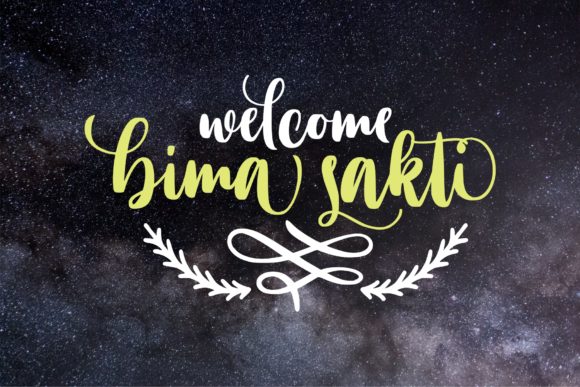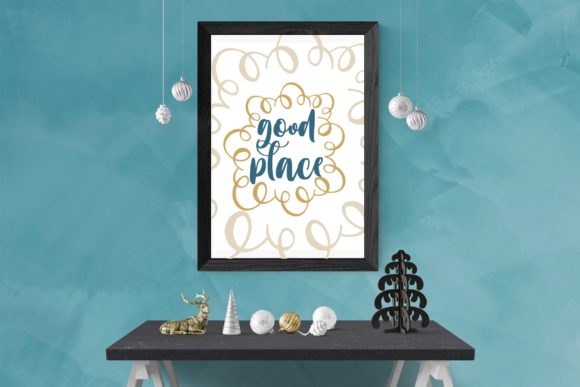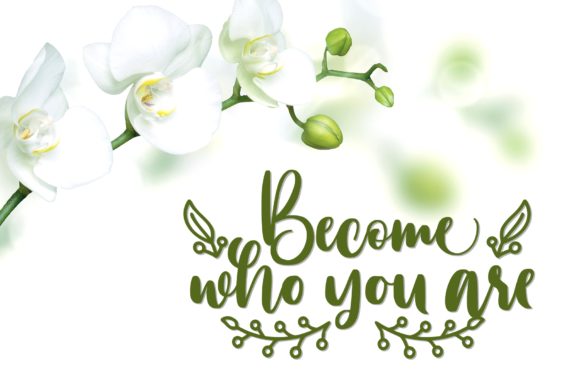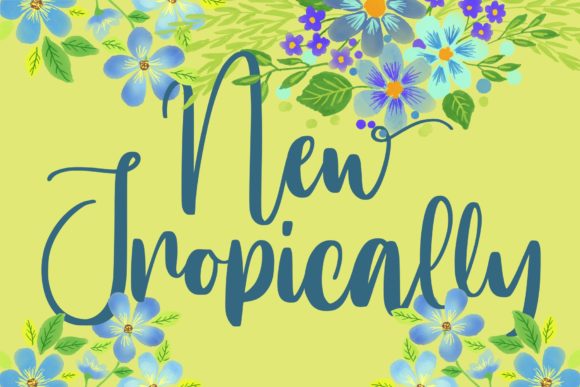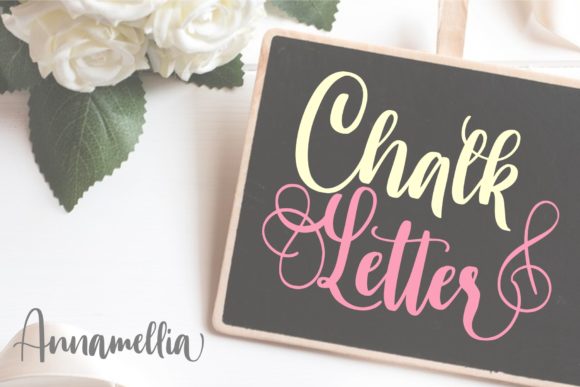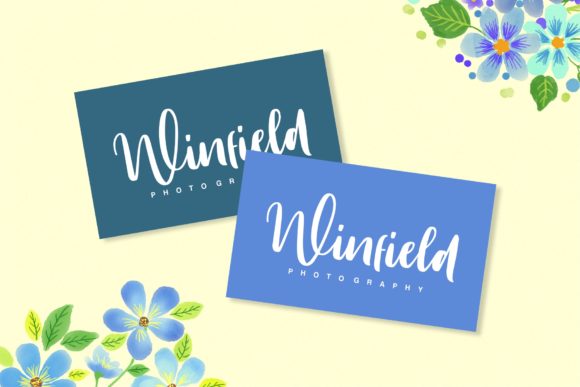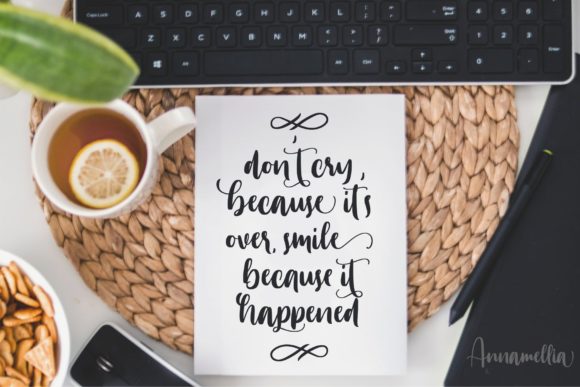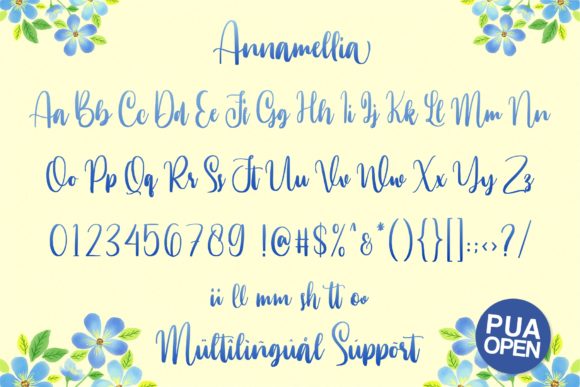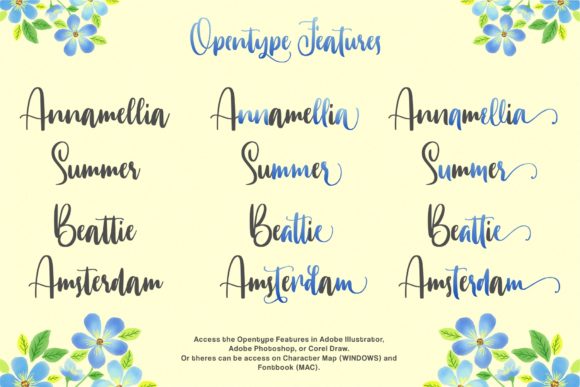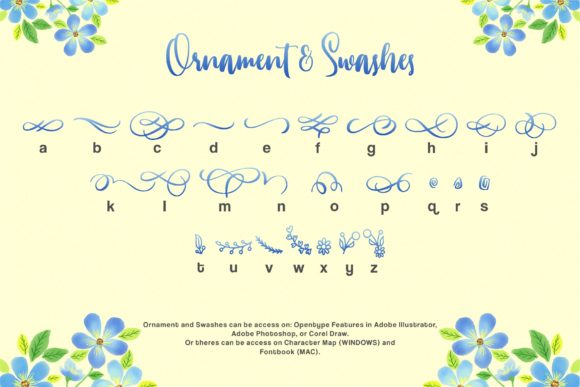
Annamellia Font
About Annamellia Font
Annamellia is a stunning and fresh handwritten font with an authentic vibe. It will add a personal feel to any crafts project!